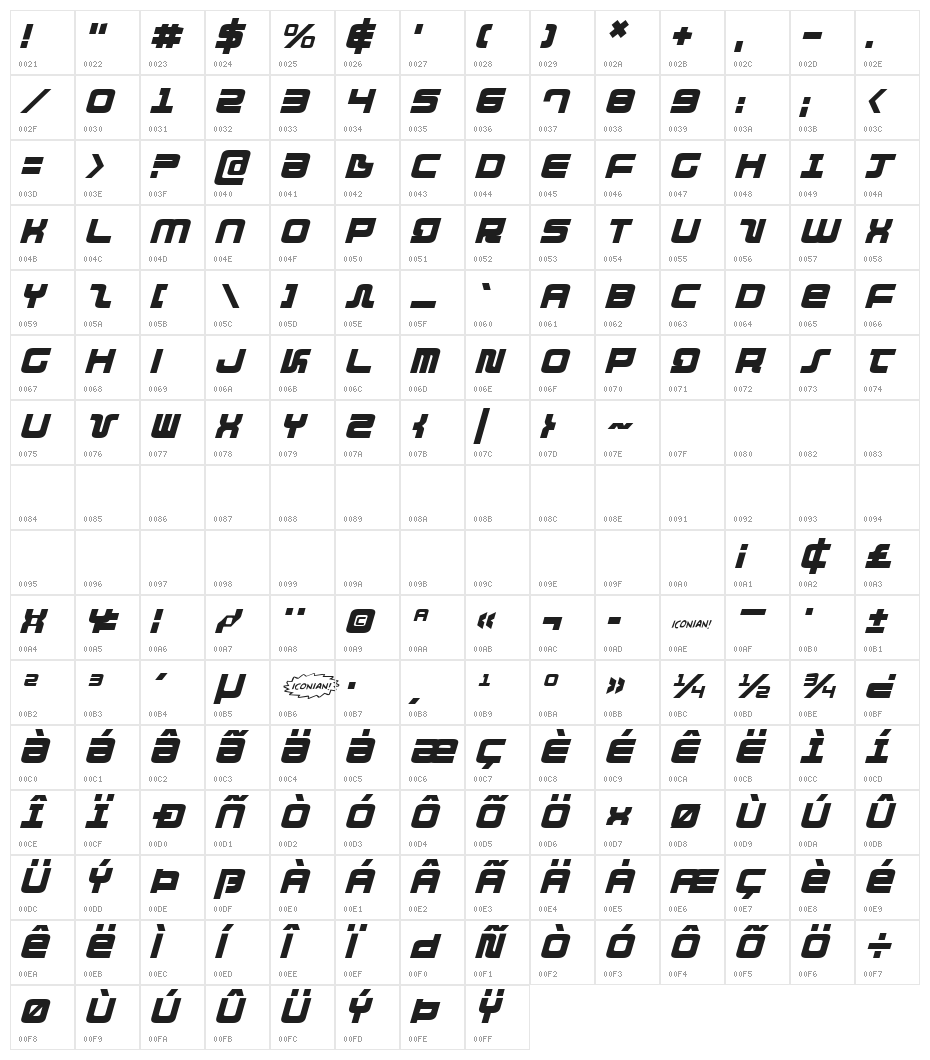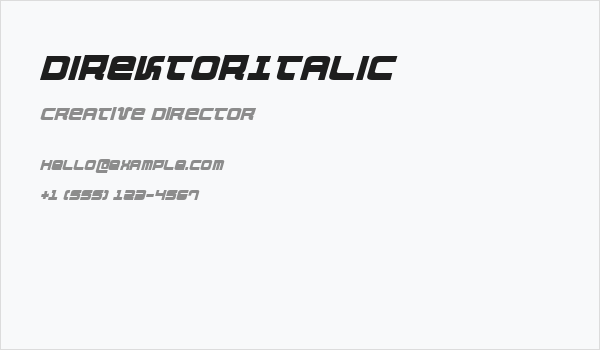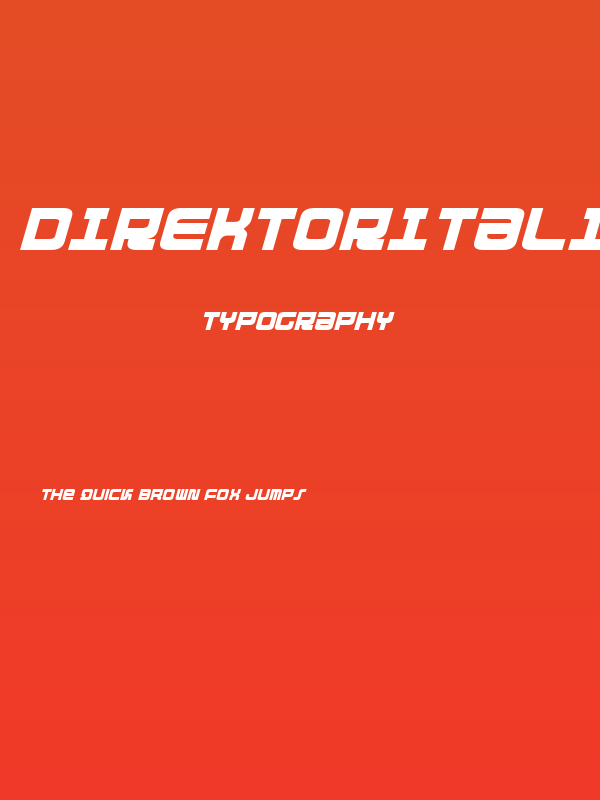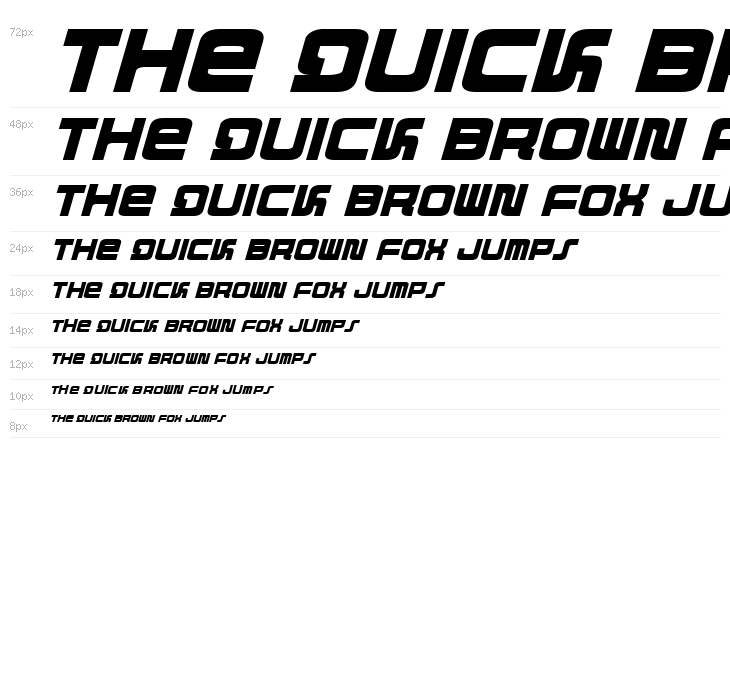
DirektorItalic Font
DirektorItalic Description
This font features a bold and dynamic style with a distinct italic slant, giving it a sense of motion and energy. The characters are wide and have a futuristic, geometric appearance, with sharp angles and clean lines. The uppercase and lowercase letters maintain a consistent style, enhancing readability while adding a modern touch. The numbers and special characters are designed to match the overall aesthetic, making this font versatile for various applications. Its bold presence makes it suitable for impactful designs.
Proposed ProjectsIdeal for sports branding, tech-related designs, futuristic posters, and dynamic advertising campaigns.